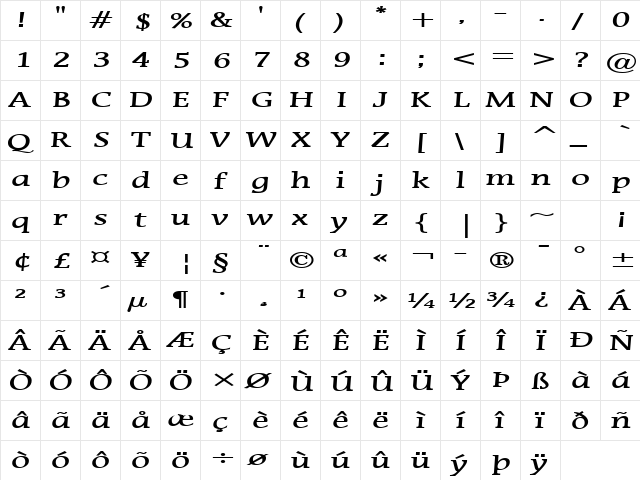
Mirror Wide Bold
Design Context for Mirror Wide Typeface
Mirror Wide offers clean, dependable letterforms without strong stylistic allegiance, making it a practical choice for designers who need flexibility. Its bold stroke weight gives it real presence on the page.